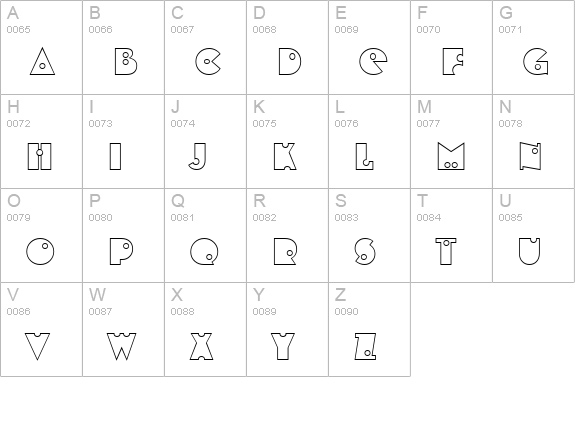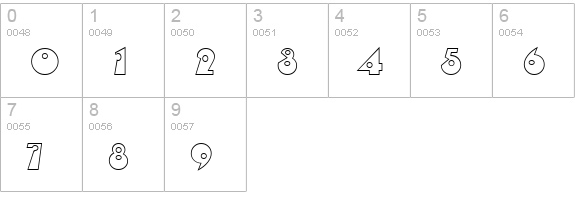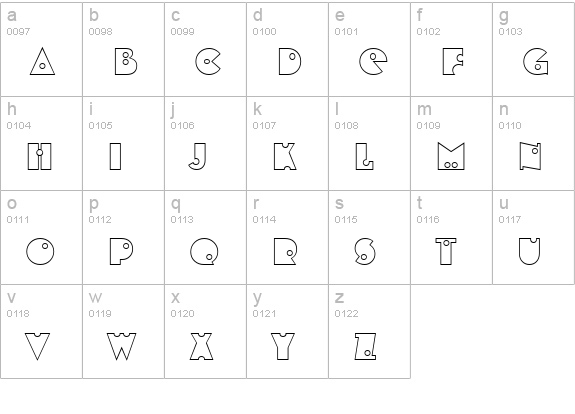
ShotShell Open Font Details
ShotShell Open is a captivating and versatile font that combines classic elegance with a modern twist. With its clean lines and sophisticated curves, this typeface is perfect for any design project that demands a touch of refinement. Whether you're creating a logo, designing a website, or crafting a beautiful poster, ShotShell Open will elevate your work to new heights. Its timeless appeal makes it suitable for a wide range of applications, from branding and advertising to editorial design and packaging. What sets ShotShell Open apart is not only its stunning aesthetics, but also its accessibility. This font is freely available to download at FontsMarket.com, allowing designers and creatives from all walks of life to enjoy its beauty without any cost. Designed with meticulous attention to detail, ShotShell Open offers a wide range of characters, including uppercase and lowercase letters, numbers, and punctuation marks. Its extensive multilingual support ensures that you can use this font to communicate your message effectively, no matter the language. ShotShell Open is a true embodiment of elegance and freedom. Its graceful curves and refined shapes will bring a touch of sophistication to your designs, while its availability as a free download allows you to unleash your creativity without any limitations. So go ahead and explore the endless possibilities that ShotShell Open has to offer.